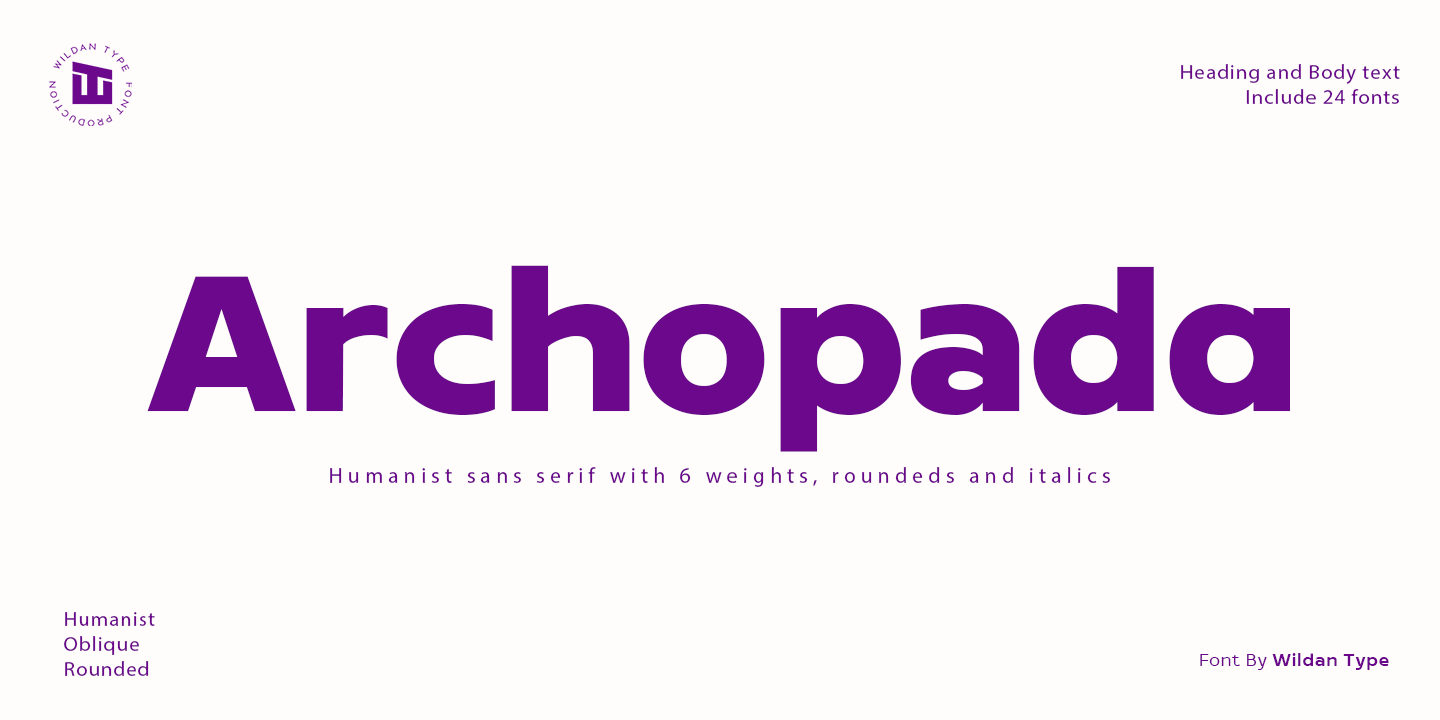
Archopada Font is perfect for architectural firm branding, archaeological research institutions, ancient civilization museums, heritage preservation societies, classical education materials, and monumental construction project signage.
Archopada Font is exciting because it captures the timeless grandeur and structural magnificence of classical architecture, delivering a monumental typeface that embodies architectural mastery, historical preservation, and the enduring legacy of ancient building traditions.
The Archopada Font family includes structural variations: Archopada Light, Archopada Regular, Archopada Bold, Archopada Black, classical alternates, and decorative elements inspired by ancient architectural details and monumental inscriptions.
Build lasting impressions with Archopada Font Free Download, a monumentally crafted typeface that brings architectural authority and classical grandeur to your most prestigious design projects. This distinguished font excels in creating memorable branding for architecture firms, historical preservation organizations, classical studies departments, and cultural institutions that celebrate the incredible achievements and enduring influence of ancient architectural mastery. The structurally designed letterforms feature proportional harmony and architectural details reminiscent of classical columns and monumental inscriptions that communicate stability, permanence, and professional excellence while ensuring perfect readability across all architectural and historical applications. Perfect for architectural portfolio presentations, historical monument documentation, classical education materials, and heritage tourism campaigns that need to convey structural integrity and cultural significance, this font connects with professionals and scholars who appreciate the foundational importance of architectural heritage. Each character stands with monumental dignity, making every architectural message feel like an inscription worthy of the greatest classical monuments and temples. Archopada Font transforms contemporary communications into timeless declarations that honor architectural heritage while establishing authority in fields where structural knowledge, historical understanding, and classical education determine professional credibility and cultural respect.